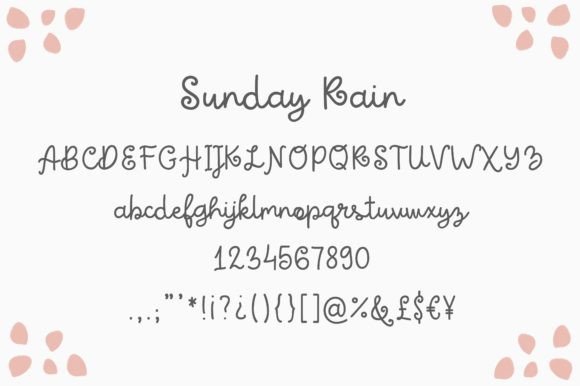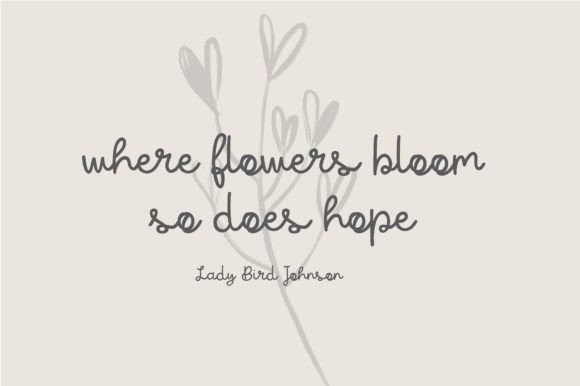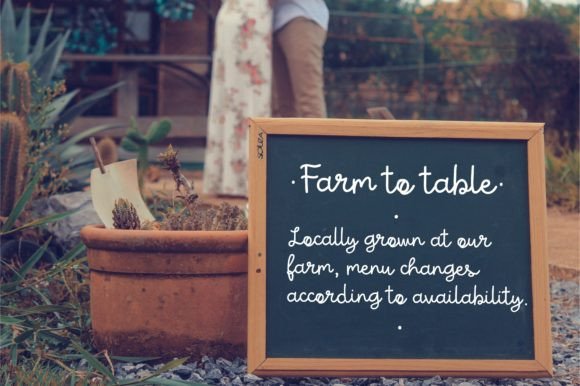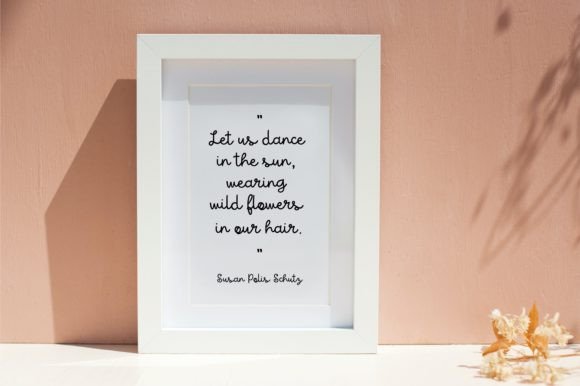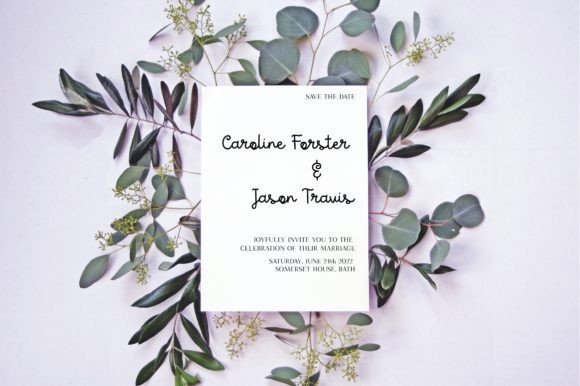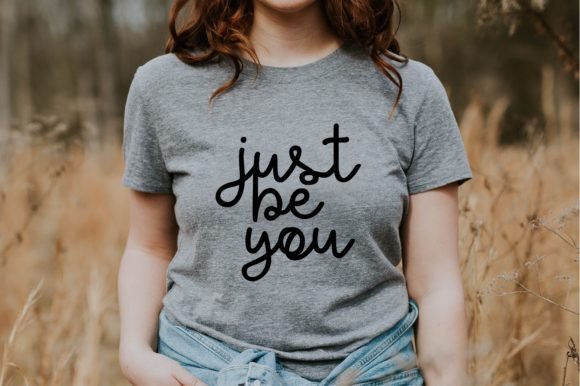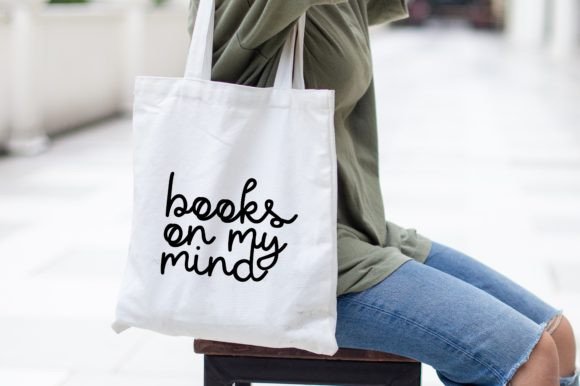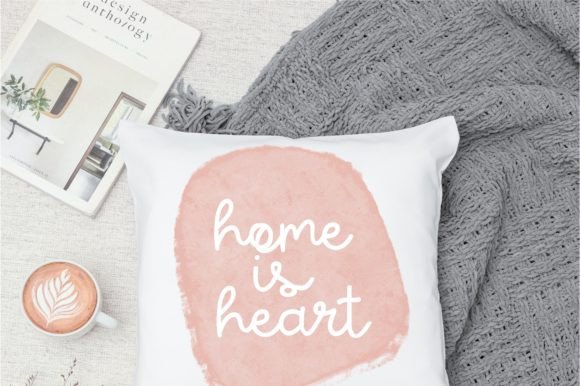
Sunday Rain Font
About Sunday Rain Font
“Sunday Rain” is introduced as a smooth and cute monoline handwritten font, designed to bring a delightful touch to your creative projects. This font is recommended for various applications, including invitations, signage, crafting projects, social media graphics, apparel design, and print design.
The smooth and cute monoline style of “Sunday Rain” contributes to its versatility, making it suitable for a wide range of design contexts. Its handwritten aesthetic adds a personal and charming feel, creating a visually appealing and friendly impression.
Whether you’re working on creating invitations, eye-catching signage, engaging social media graphics, stylish apparel designs, or print materials that require a cute and approachable font, “Sunday Rain” is crafted to meet these diverse needs.
In summary, “Sunday Rain” is a font that combines smoothness and cuteness, making it a valuable asset for designers seeking a versatile and charming handwritten typeface. Its application spans across various design projects, allowing you to infuse your creations with a touch of warmth and style.